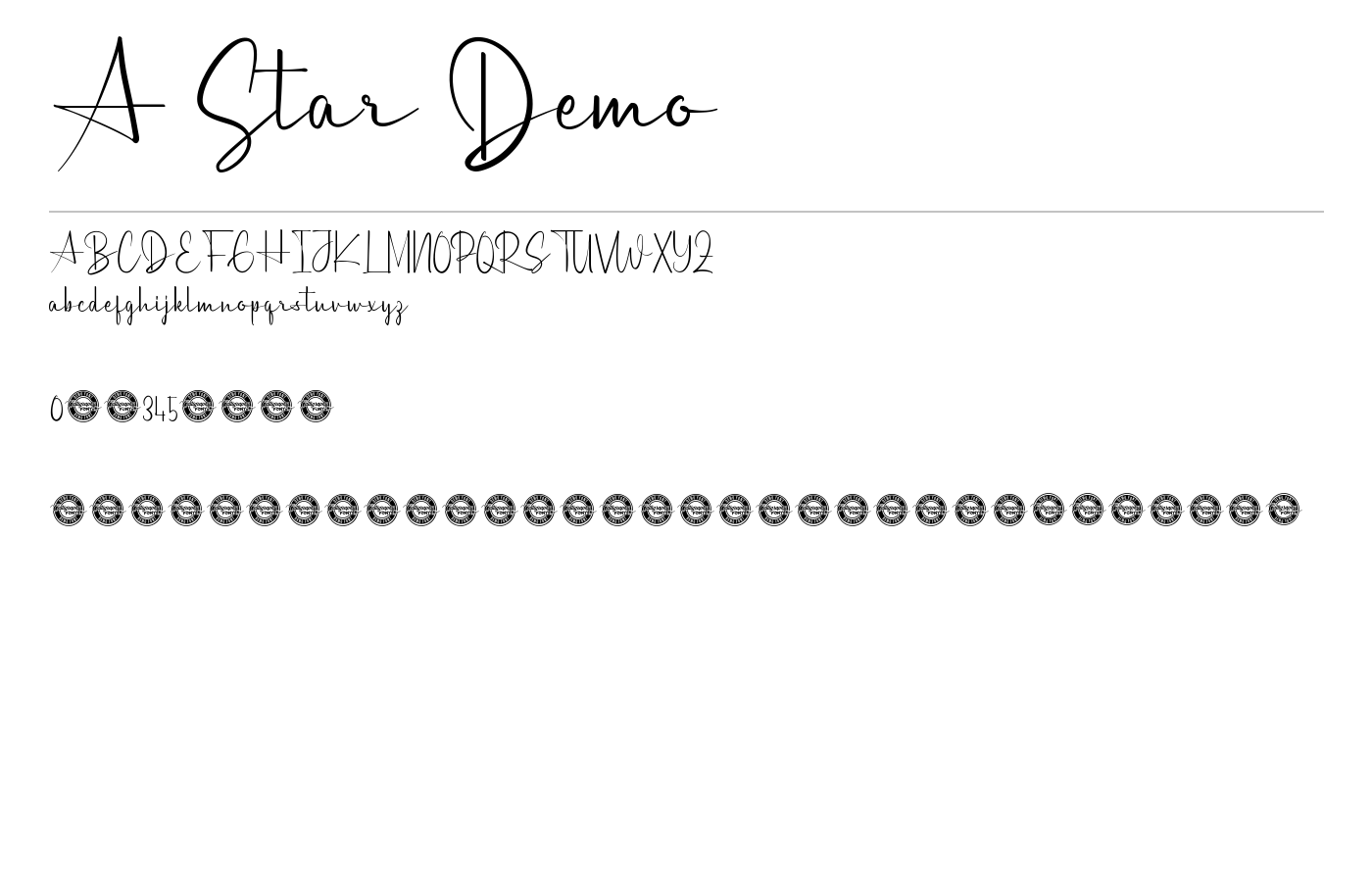
A Star Demo is a delicate, handwritten script font with a whimsical and elegant feel, featuring thin, airy strokes and playful letterforms that combine both single-story and traditional shapes. Its light weight and narrow width make it perfect for adding a personal, artistic touch to invitations, branding, and creative projects where a refined yet casual style is desired. This font works especially well in headlines or decorative text, bringing a graceful and unique charm to any design.
A Star Demo Font
About A Star Demo Font